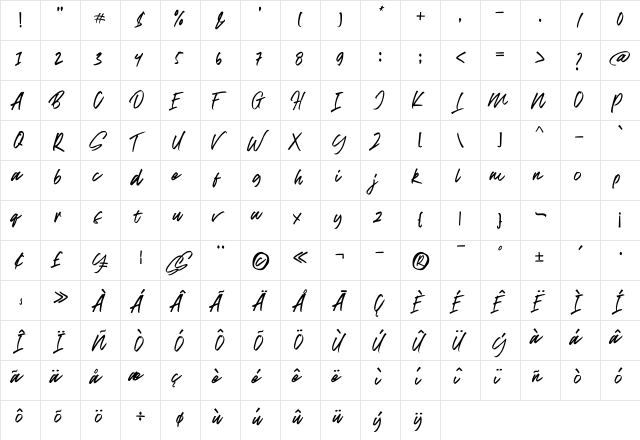
Break Dust Regular
Design Context for Break Dust Typeface
Break Dust is a composed and adaptable typeface that performs quietly and consistently across a wide range of design contexts.